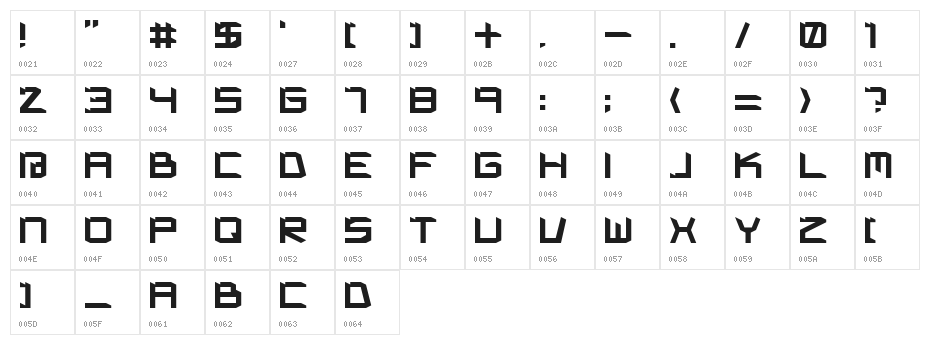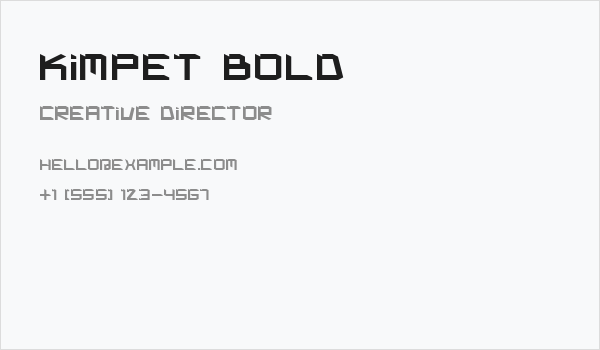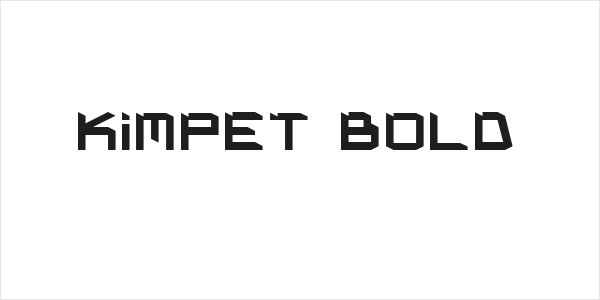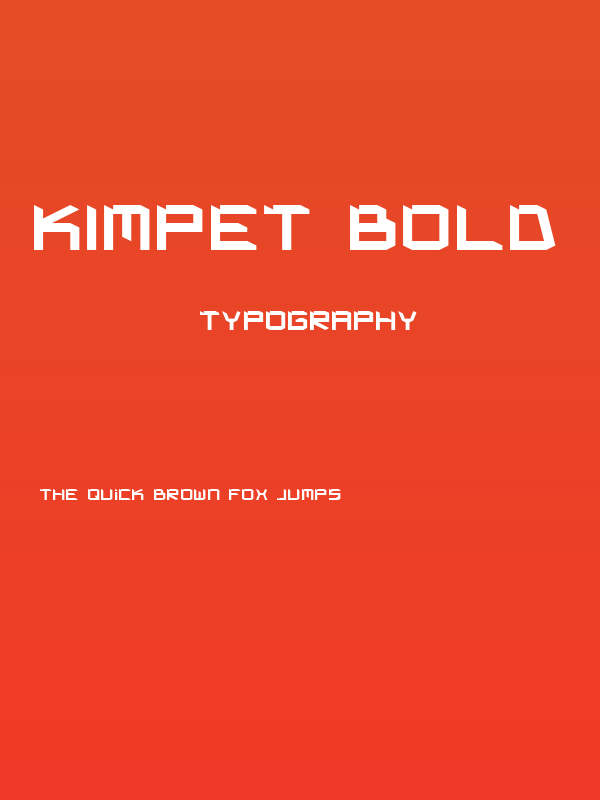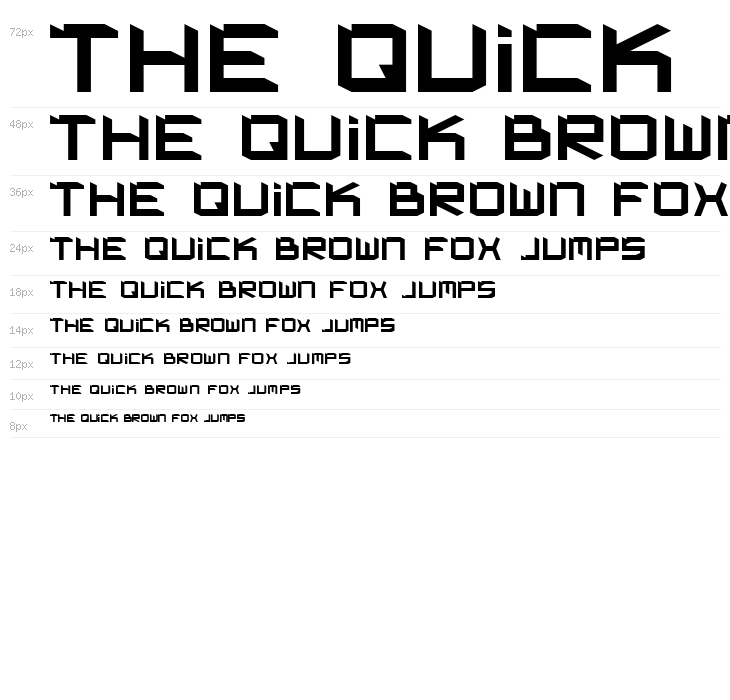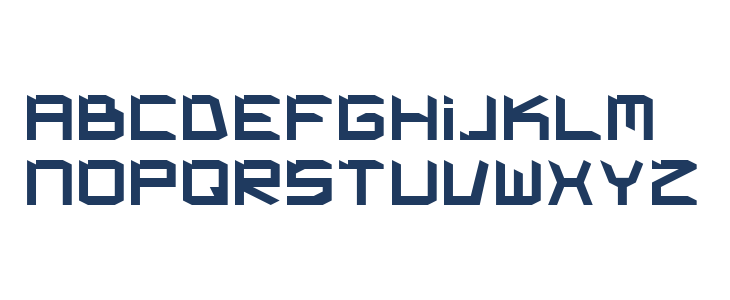
Kimpet Bold Font
Kimpet Bold Description
This font features a bold, geometric design with sharp angles and a futuristic aesthetic. The characters are constructed with a consistent thickness, giving a uniform appearance across all letters and numbers. The angular cuts and straight lines create a sense of modernity and precision, making it stand out in any design. The uppercase and lowercase letters maintain a similar style, ensuring cohesion throughout the text. The numerals and special characters are designed to match the overall angular theme, providing a seamless integration into any project.
| Proposed Projects | Ideal for technology branding, video game titles, sci-fi posters, and modern logos. |